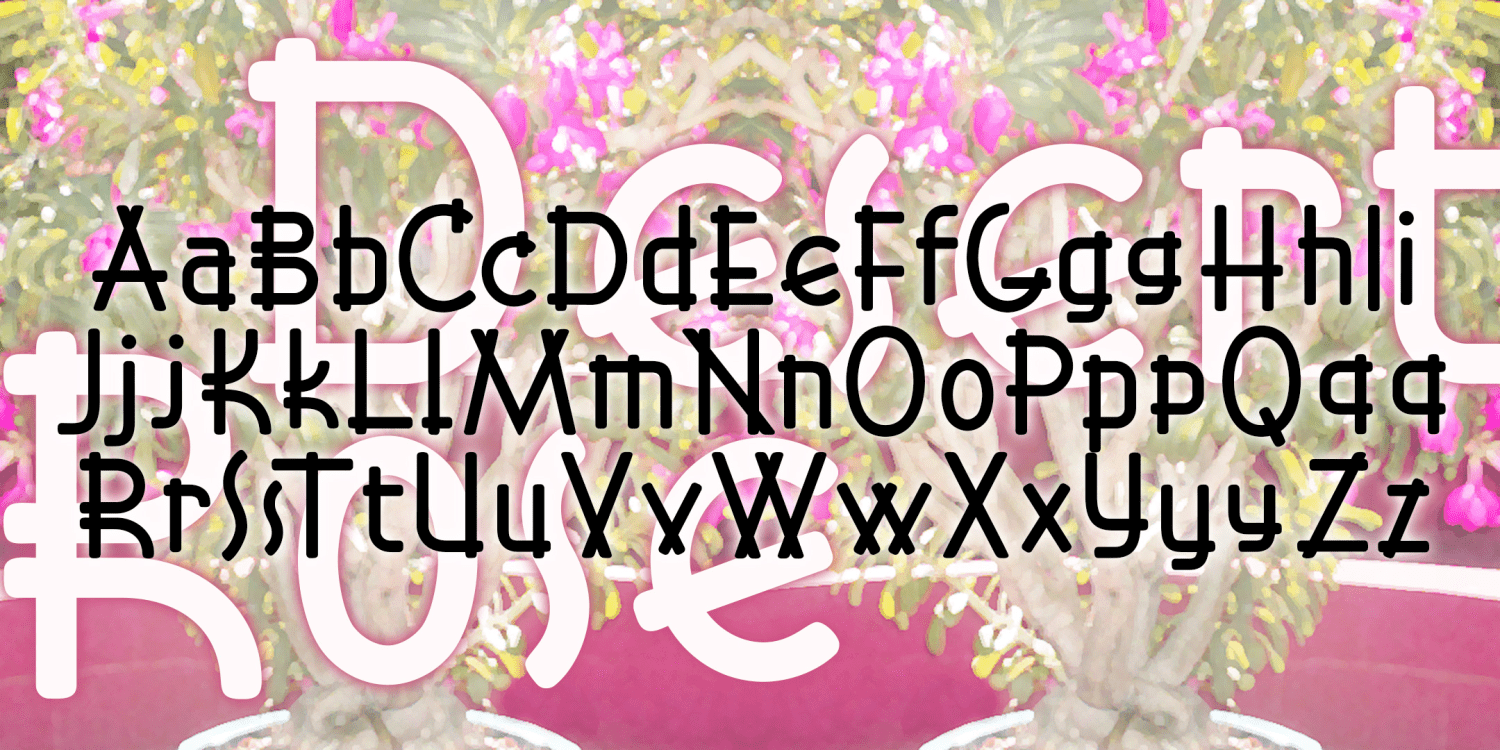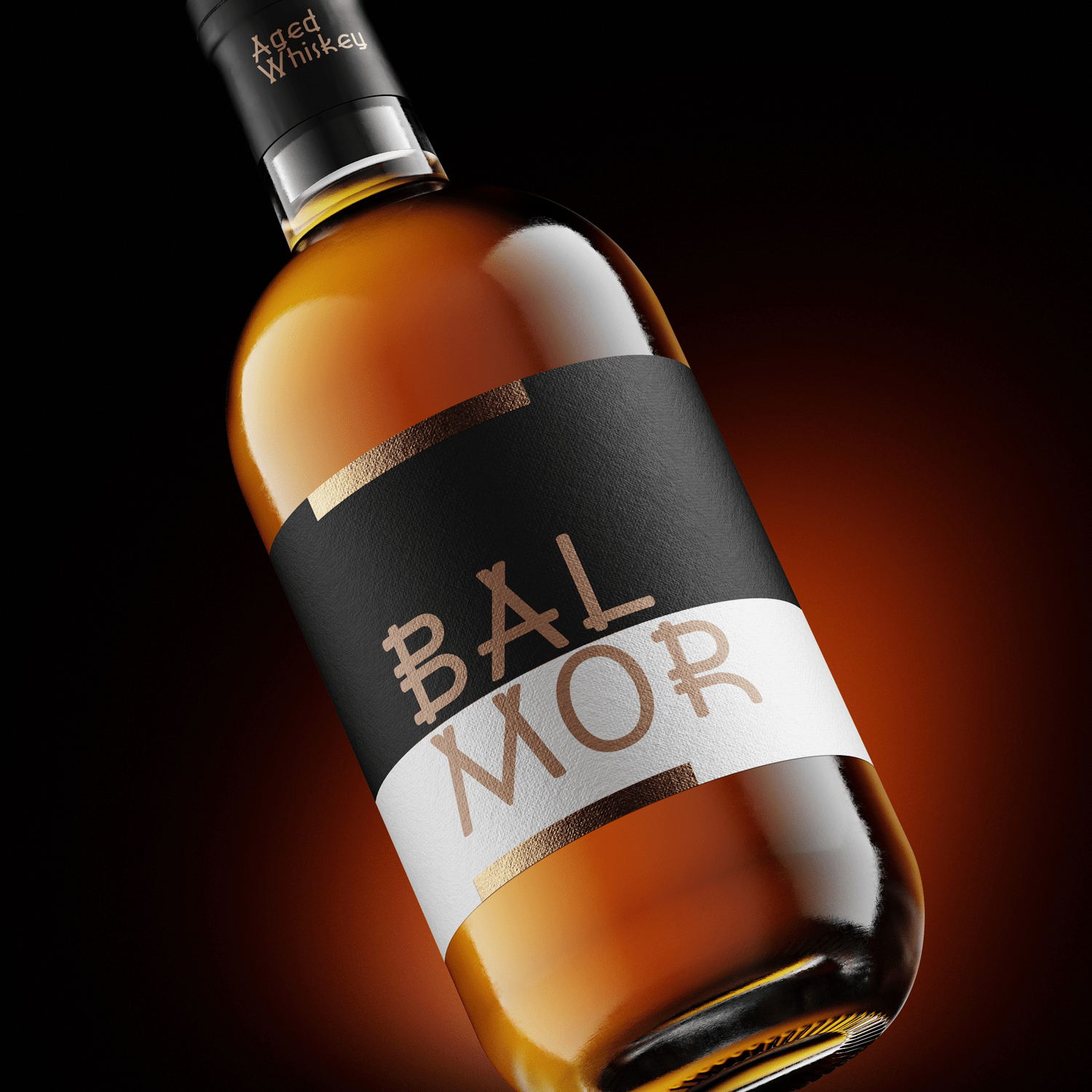
Desert Rose
DESERT ROSE is sleek and stylish with letter forms composed of graceful repeating elements. Deceptively simple and elegant, DESERT ROSE was inspired by an example of hand-lettering included in Alphabets: Ancient & Modern, compiled by J. B. Russell (Padell, 1946).
The Desert Rose font family includes 351 glyphs.